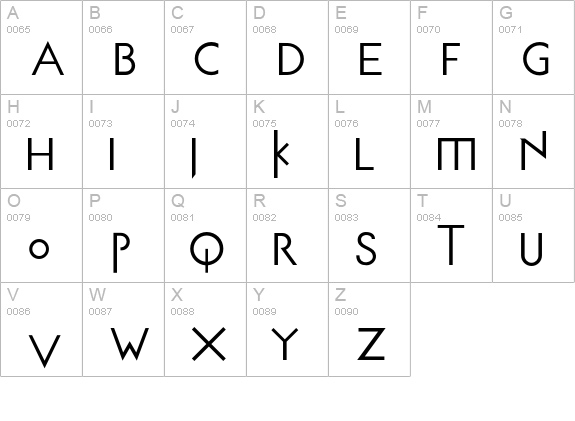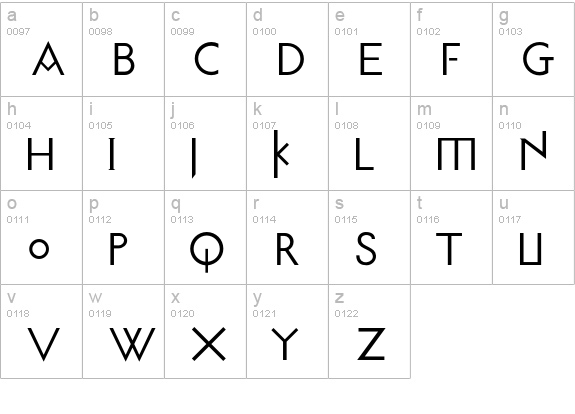
UnzialisSans Font Details
UnzialisSans font is a modern and sleek typeface that exudes elegance and sophistication. With its clean lines and balanced proportions, this font is perfect for a wide range of design projects, from branding and advertising to editorial and web design. What sets UnzialisSans font apart is not only its impeccable design, but also its accessibility - it is available for free download at FontsMarket.com. This means that designers and creatives from all walks of life can easily incorporate this stunning font into their work without any financial barriers. The versatility of UnzialisSans font is truly remarkable. Whether you're aiming for a professional and corporate look or a more playful and whimsical vibe, this font can adapt to any design concept with ease. Its wide range of weights and styles allows for endless creative possibilities, ensuring that your typography will always make a bold statement. UnzialisSans font is not just aesthetically pleasing, but also highly legible, making it a smart choice for both print and digital designs. Its clean and crisp letterforms ensure optimal readability even at smaller sizes, while its subtle details and unique character shapes add a touch of personality to any composition. Whether you're a seasoned designer or just starting out, UnzialisSans font is a must-have addition to your typography collection. Its seamless integration into various design projects, coupled with its availability as a free download on FontsMarket.com, makes it an invaluable resource that will elevate your work to the next level. So why wait? Start exploring the endless possibilities of UnzialisSans font today!